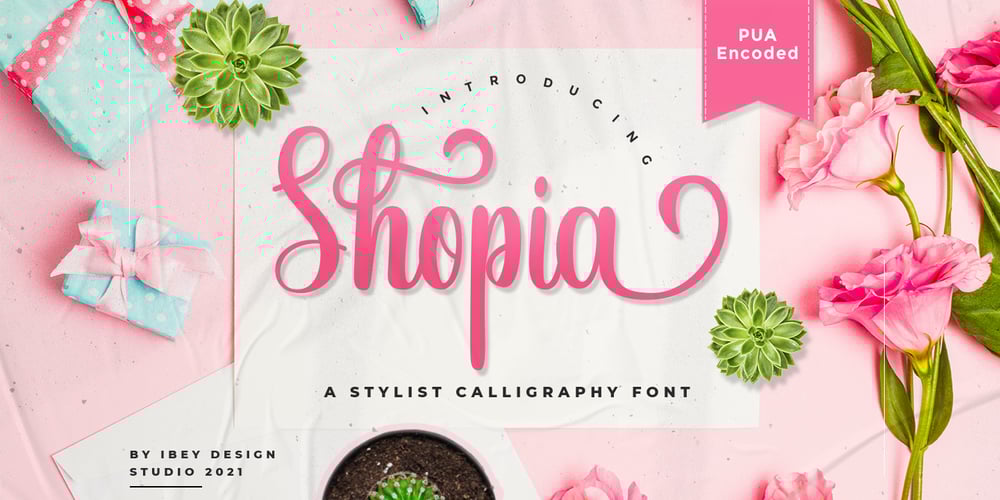
Shopia Modern Calligraphy Font Family was designed by Ikrar Bey Khubaib and published by IbeyDesign. Shopia Modern Calligraphy contains 1 styles and family package options. Sophia Modern Calligraphy Font is a stylish handwritten font that inspires friendliness and elegance. It is perfect to use for any of your wonderful creations such as branding projects, logos, brochures, business cards, wedding invitations, and many others.